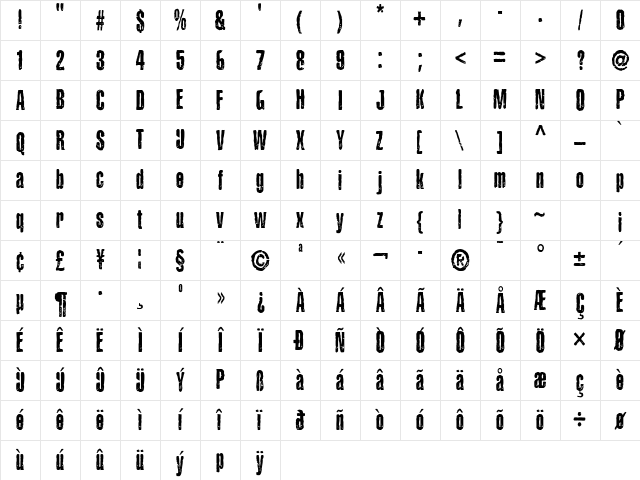
Sabotage Medium Free Font
Sabotage Medium
Foundry: Sabotage Lunchbox Design, Designed By Adam Roe,
Design Context for Sabotage
Sabotage is a composed and adaptable typeface that performs quietly and consistently across a wide range of design contexts.
Who designed the Sabotage Medium font?
This font was published by Sabotage Lunchbox Design, Designed By Adam Roe,. Check the technical specs section for copyright and designer details.